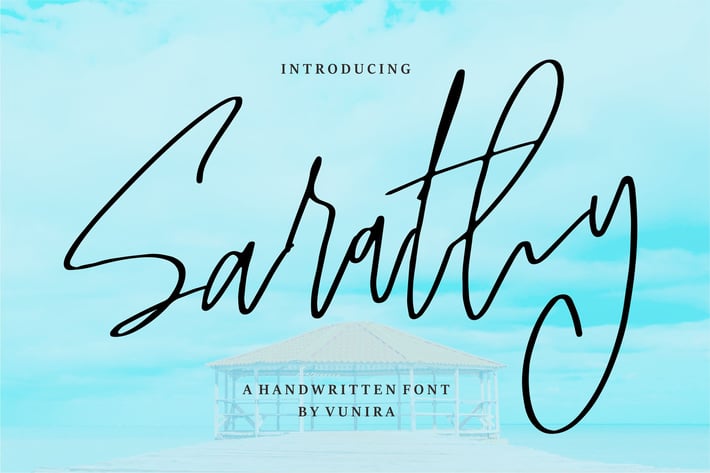
Sarathy | A Handwritten Font
Sarathy | A Handwritten Font with a calligraphy style, So beautiful on invitation like greeting cards, branding materials, business cards, quotes, posters, and more!